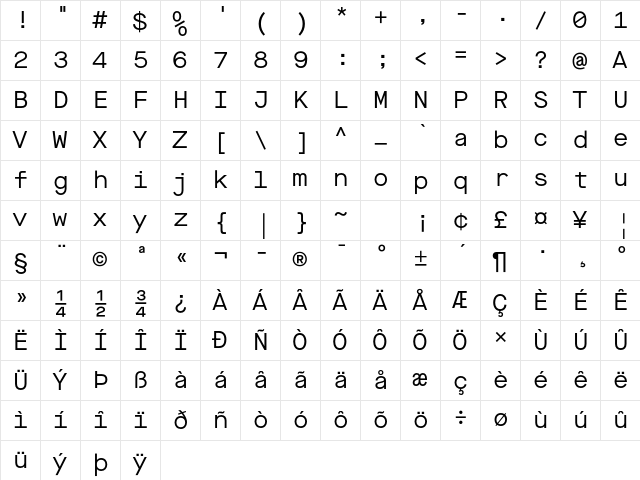
Maison Neue Mono Regular
Foundry: Milieu Grotesque
Designer: Timo Gaessner
Design Context for Maison Neue Mono
Maison Neue Mono uses fixed-width spacing throughout, giving it the structured, systematic character associated with coding environments and technical documentation.
Pro Tip: Use Maison Neue Mono with slightly increased line-height for extended reading - fixed-width spacing can feel dense in longer passages without extra breathing room.